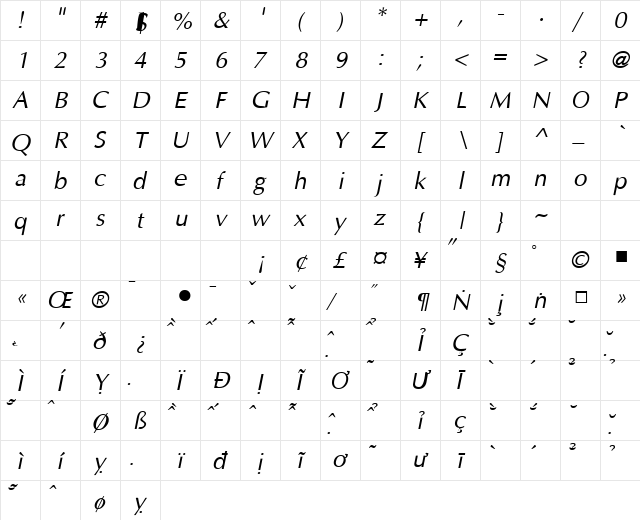
VNI Aptima Italic
Design Context for VNI Aptima Typeface
VNI Aptima is a composed and adaptable typeface that performs quietly and consistently across a wide range of design contexts. The slanted form adds forward momentum and visual energy.
Pro Tip: Try VNI Aptima for annotation and caption copy alongside an upright companion — the contrast in angle creates a dynamic but ordered typographic system.